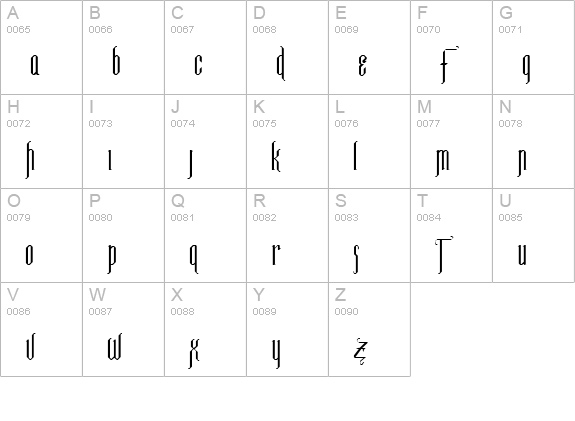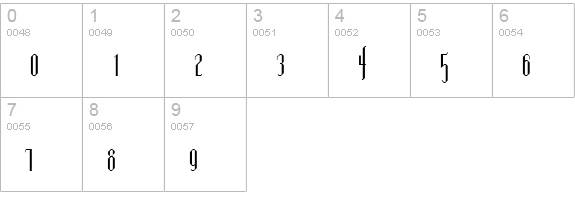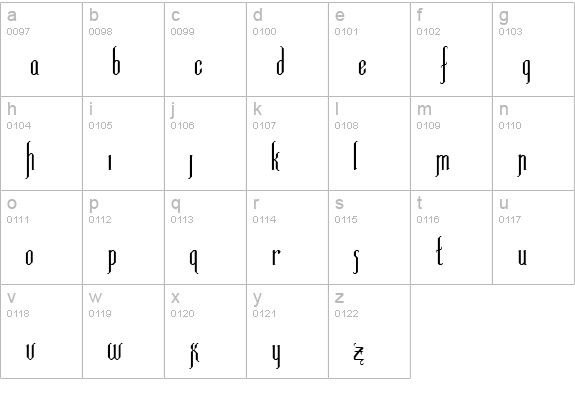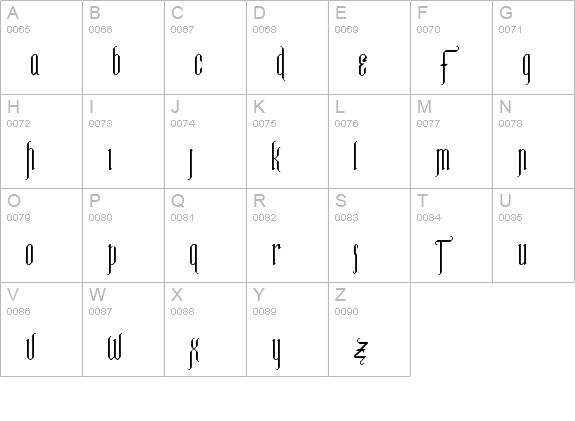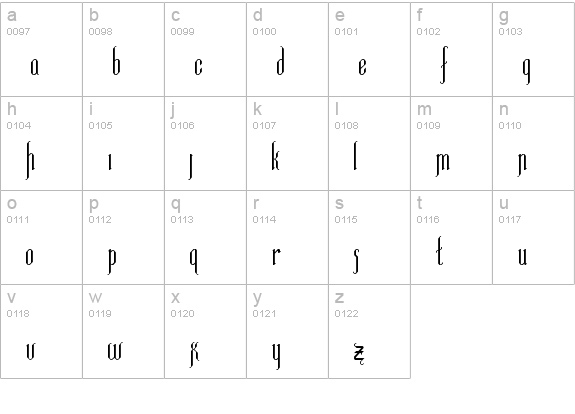
Patrouille Font Details
Patrouille font is a modern and stylish typeface that exudes sophistication and elegance. With its clean lines and sleek design, this font is perfect for adding a touch of class to any project. Whether you're creating a logo, designing a website, or crafting a poster, Patrouille font is sure to make a statement. What sets Patrouille font apart is not only its striking appearance but also its versatility. This font can be used for a wide range of applications, from branding to editorial design. Its timeless appeal ensures that it will remain a classic choice for years to come. The best part? Patrouille font is completely free to download at FontsMarket.com. That's right, you can elevate your designs with this stunning font without having to spend a dime. So why wait? Download Patrouille font today and take your projects to the next level.